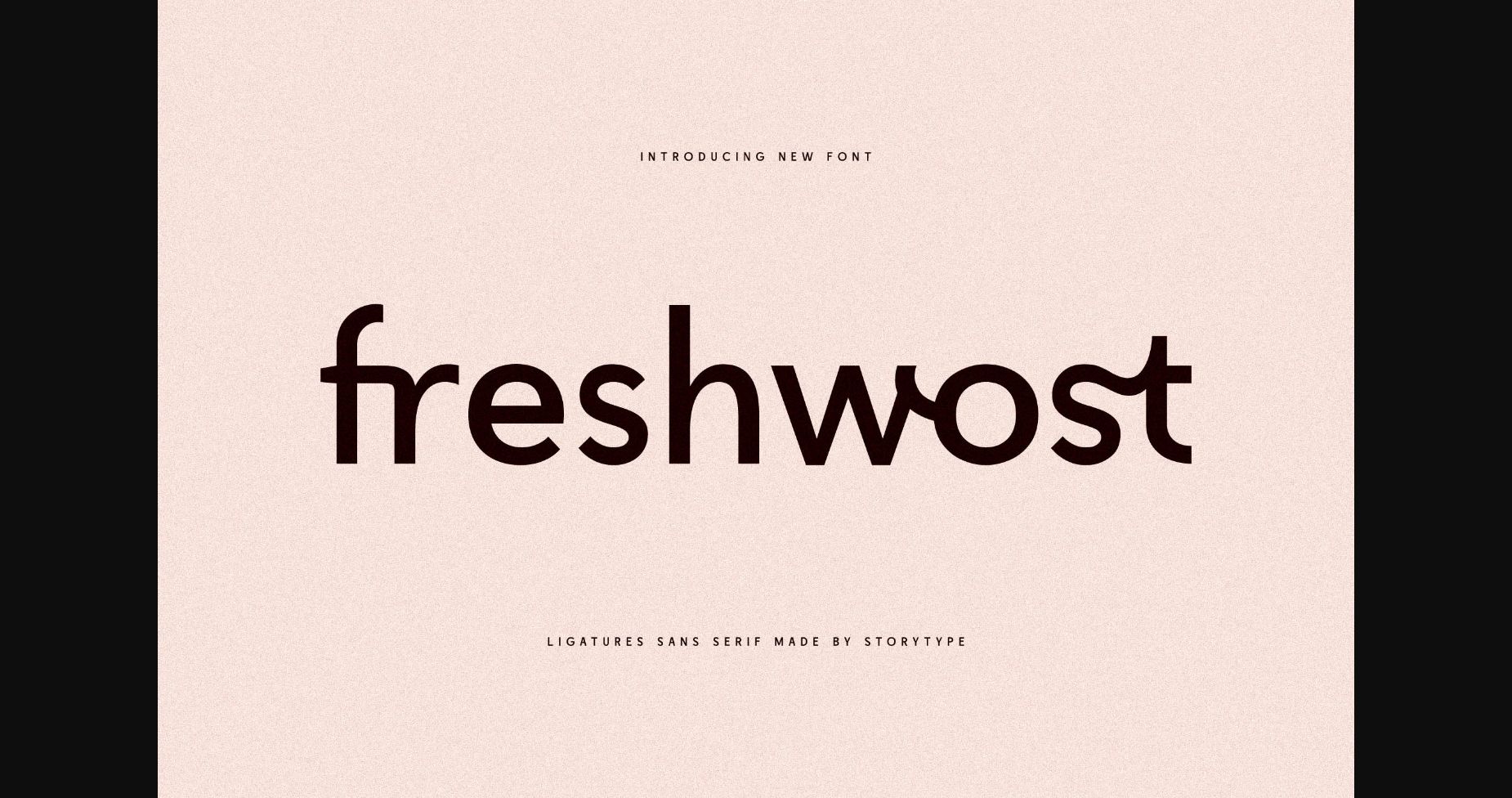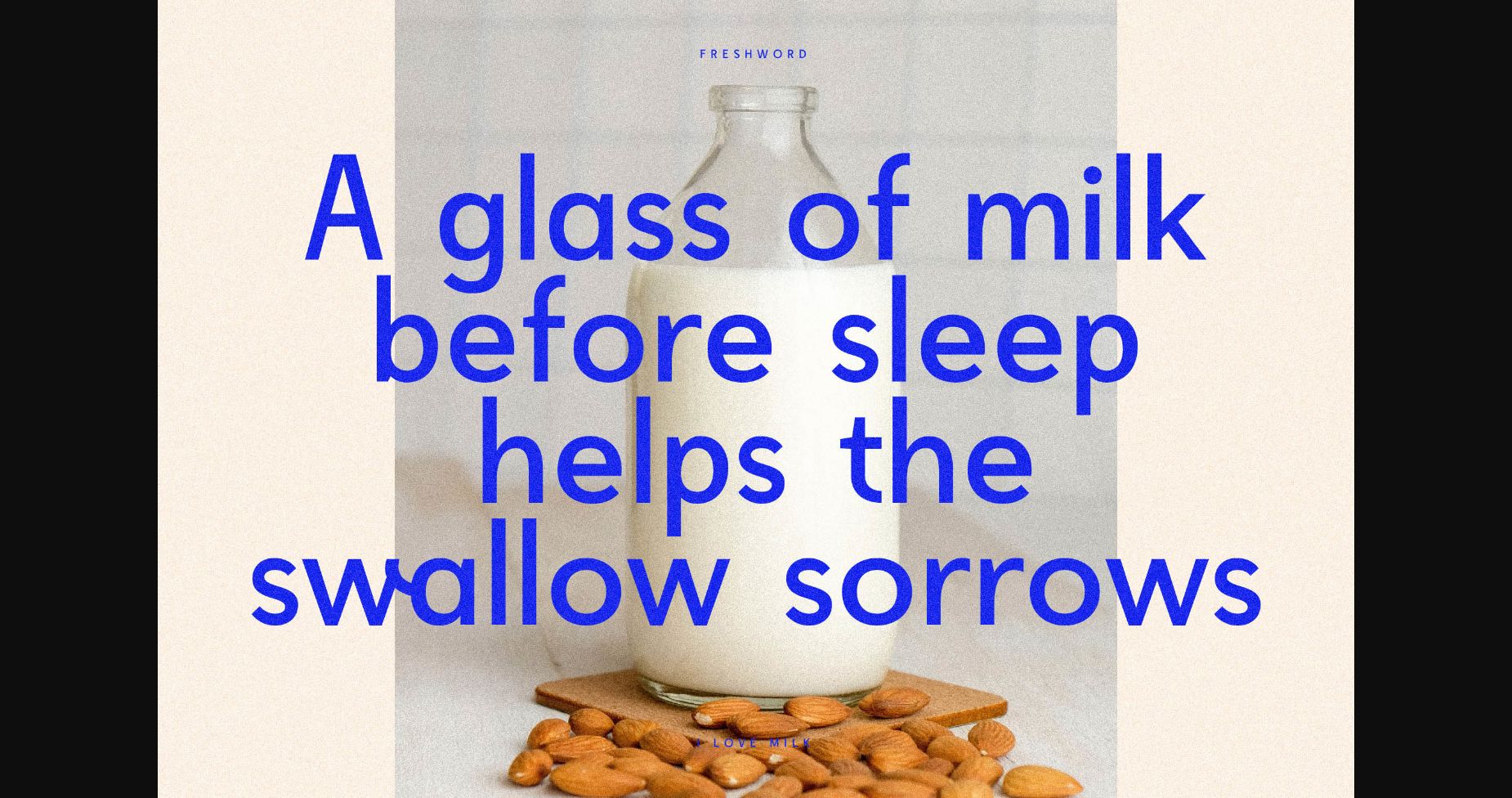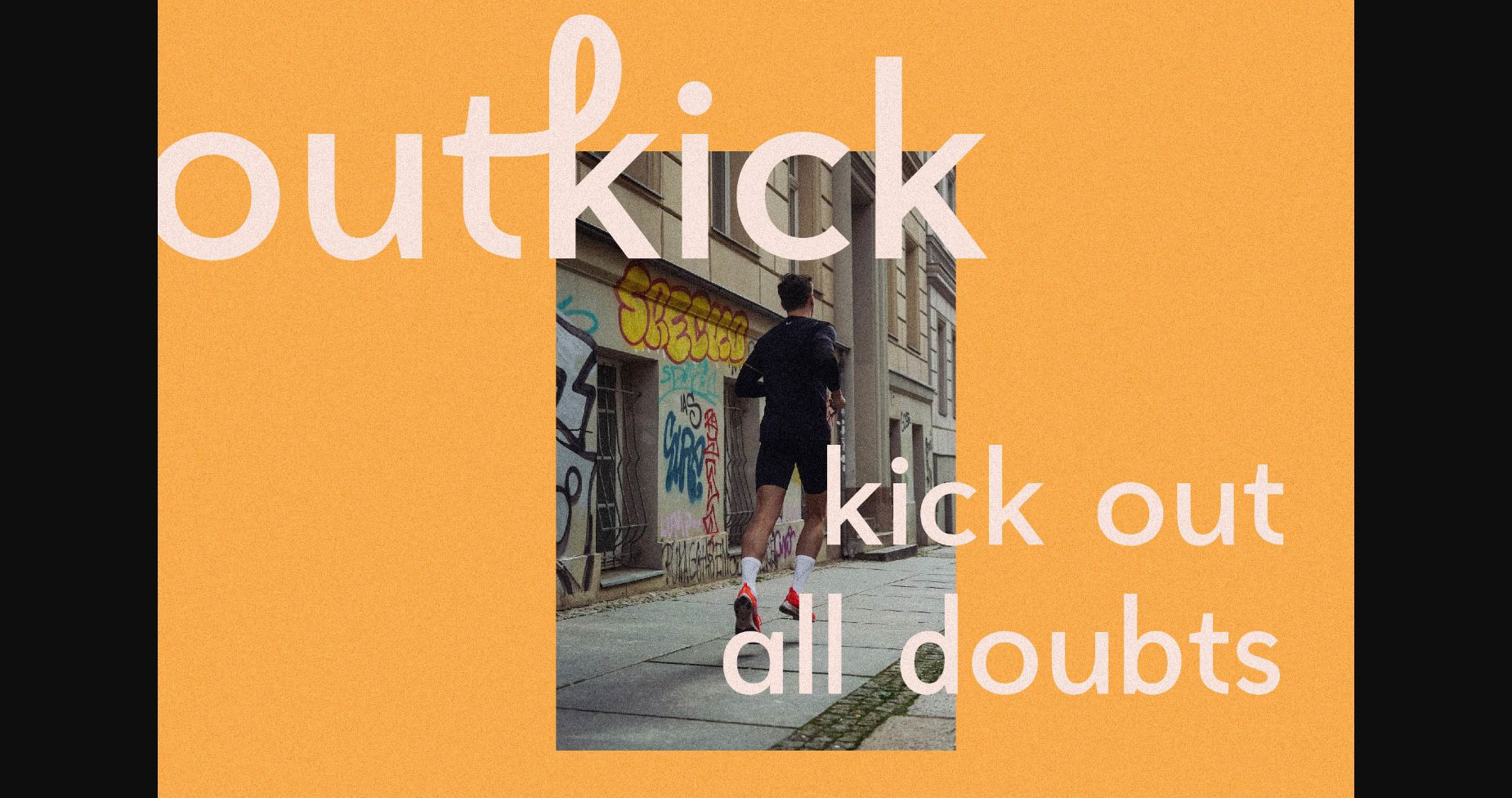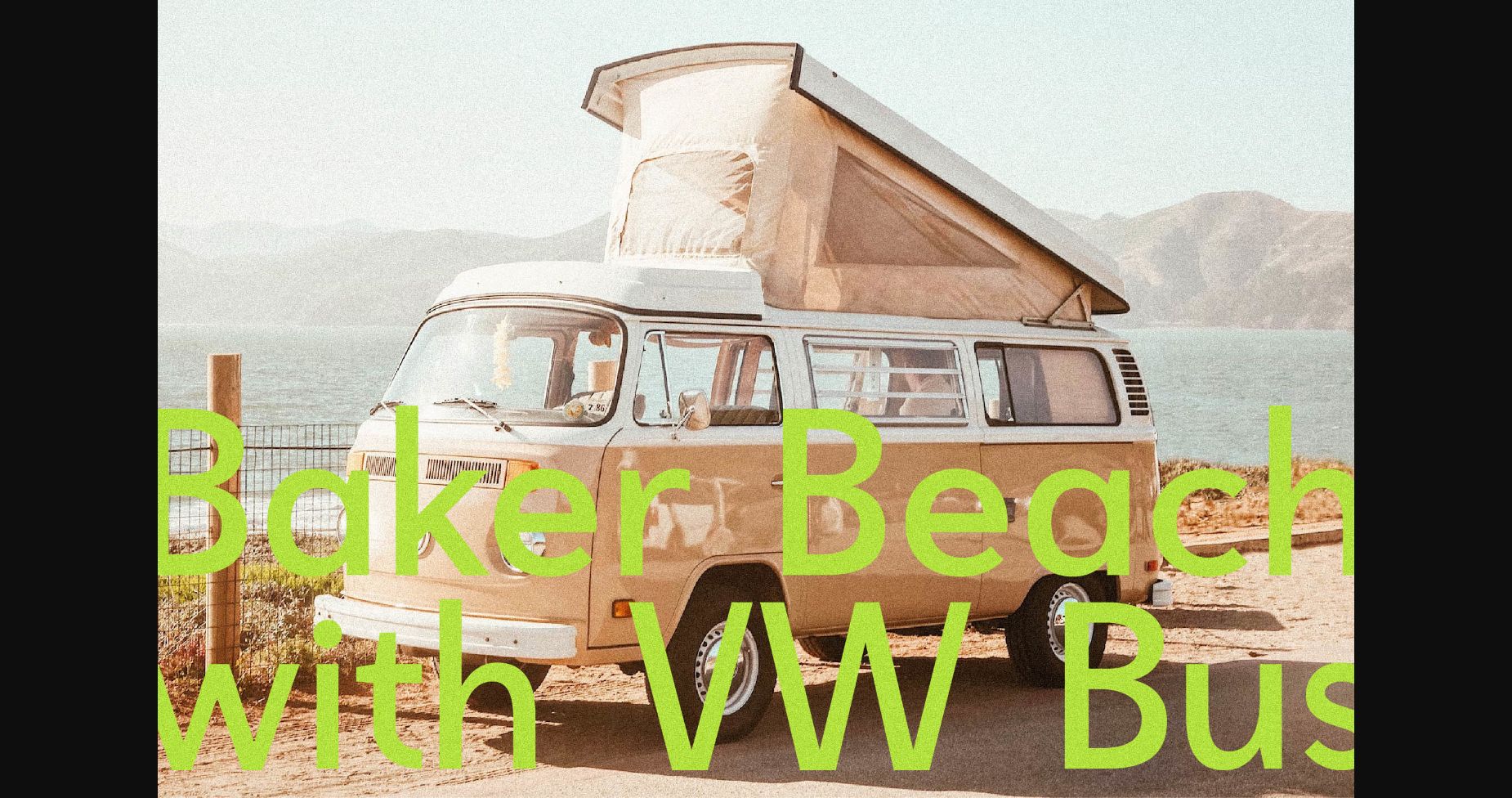
About Freshwost Font
Freshwost is a serif modern and classic typeface with one unique style & modern look. This lovely typeface is perfect for an elegant & luxurious logo, book or movie title design, fashion brand, magazine, clothes, lettering, quotes, and so much more.